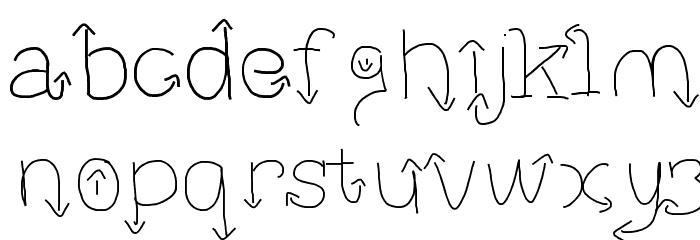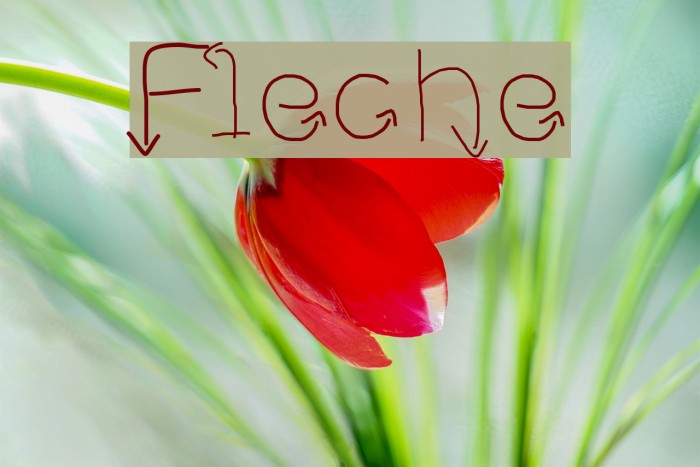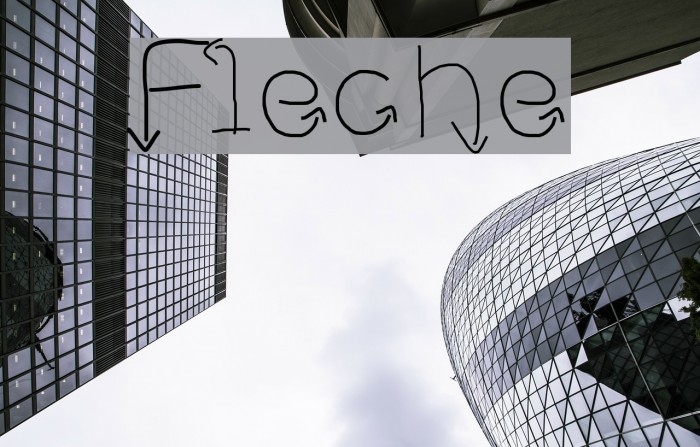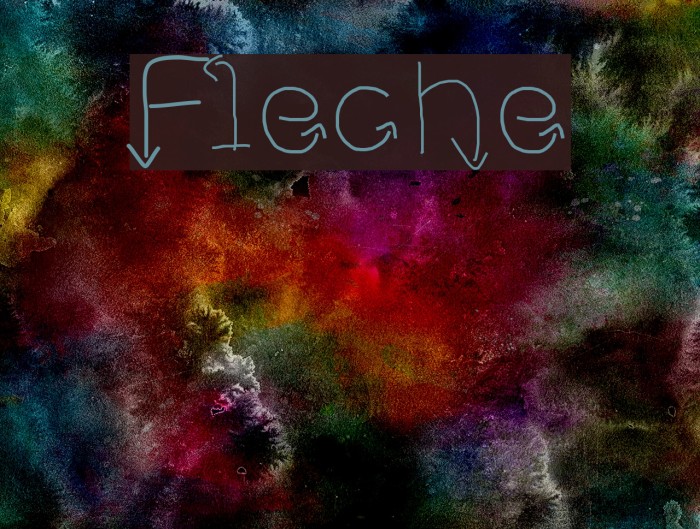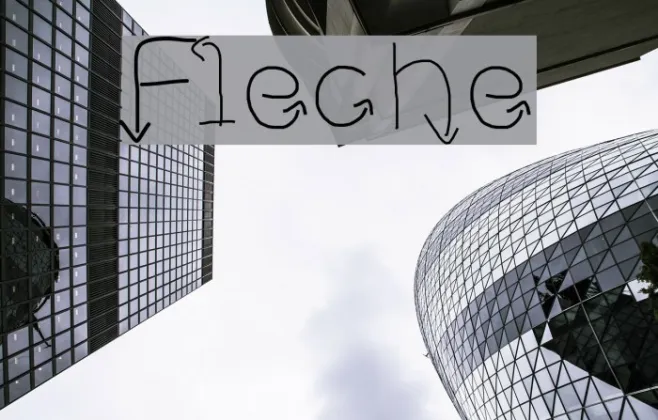
Fleche Font
This playful and whimsical font features arrows integrated into each character, creating a dynamic and engaging visual effect. The uppercase and lowercase letters, as well as numbers, are adorned with arrows pointing in various directions, adding a sense of movement and directionality. The strokes are consistent in weight, giving the font a uniform appearance despite its decorative elements. The special characters also incorporate arrows, maintaining the cohesive theme throughout the set. This font is ideal for projects that require a fun and energetic touch, making it suitable for creative and informal contexts.
A playful font with arrows integrated into each character, adding dynamic movement.
- Proposed Projects: Ideal for children's books, playful branding, creative posters, and educational materials.
- Use Case: Headlines, Logos, Creative projects